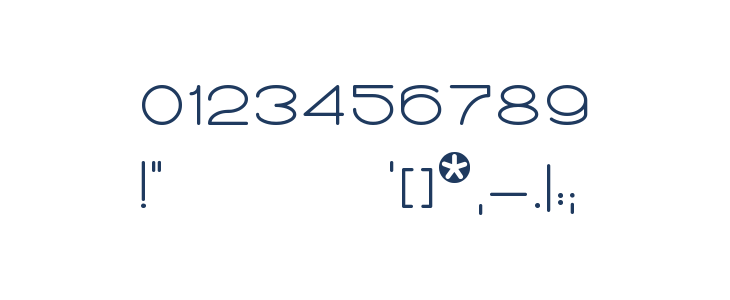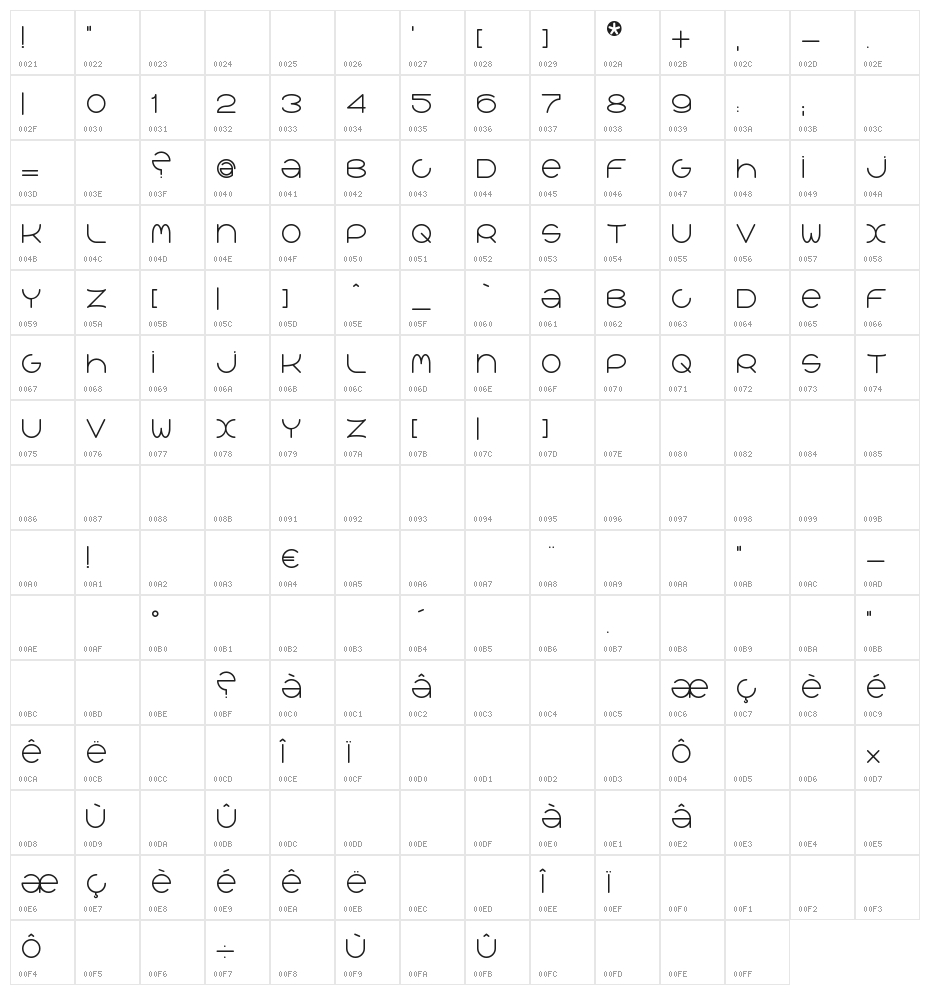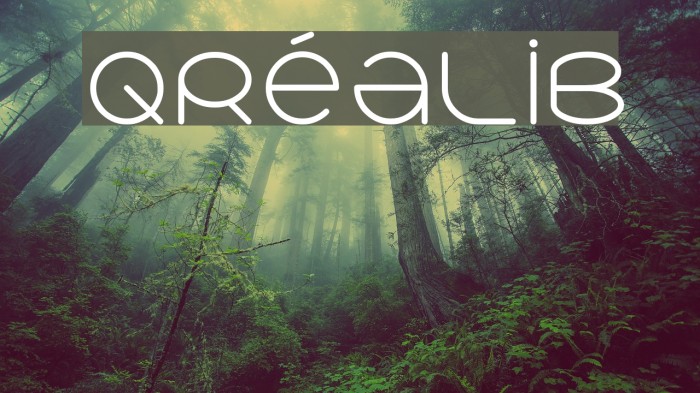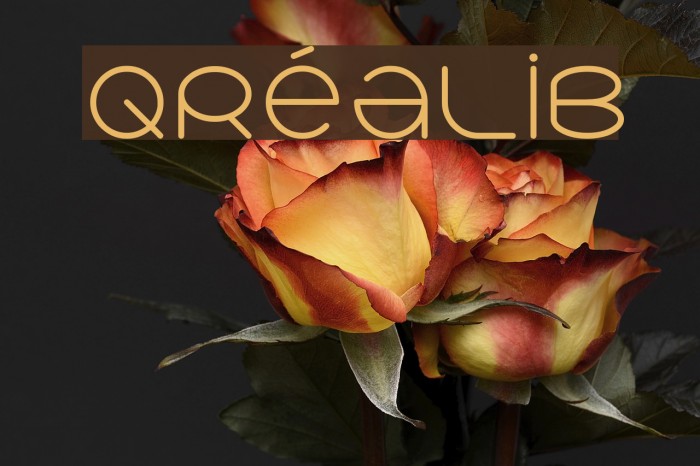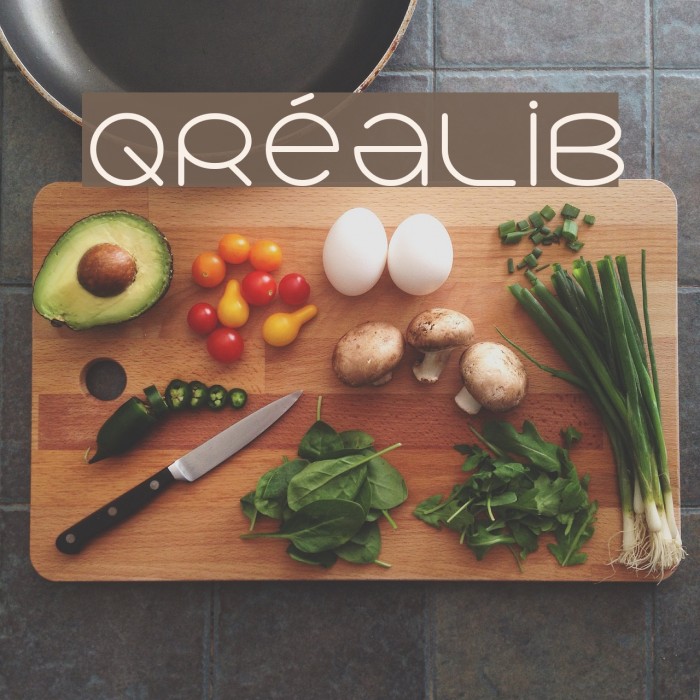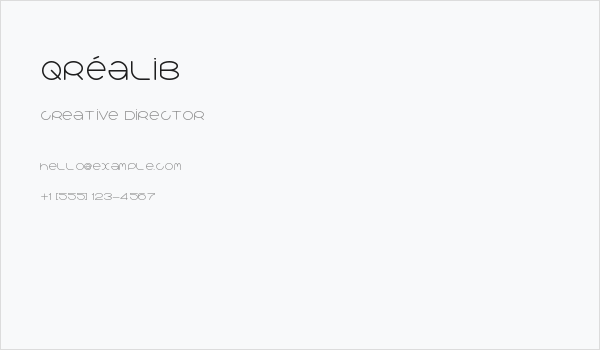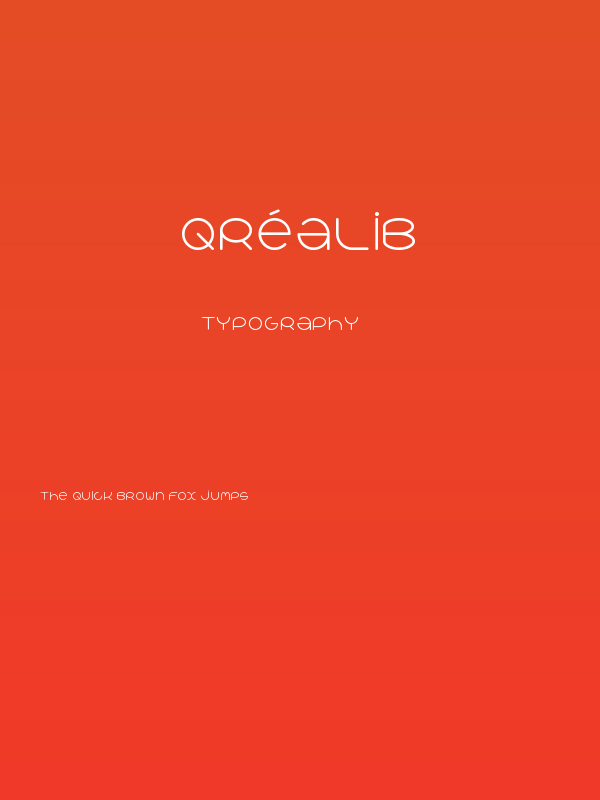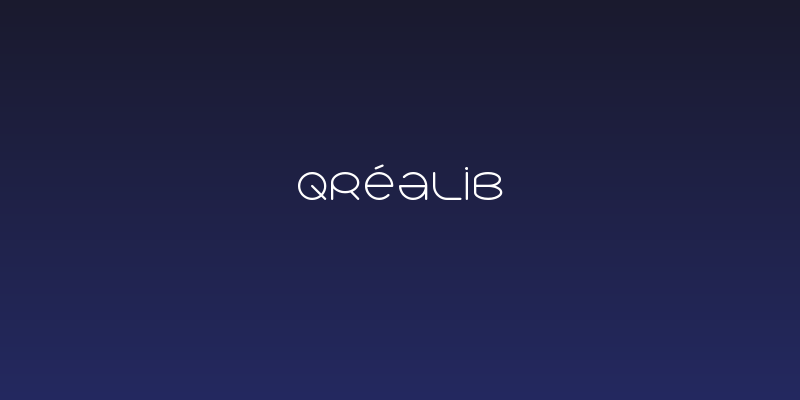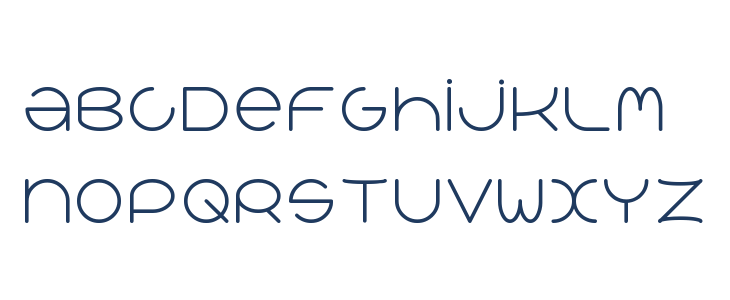
qréalib Font
qréalib Description
This font features a modern, geometric design with clean, rounded edges and a minimalist aesthetic. The characters are uniformly structured, providing a sense of balance and harmony. The uppercase and lowercase letters maintain a consistent style, with smooth curves and a slight futuristic touch. The numerals are distinct and easy to read, complementing the overall design. Special characters are crafted with the same attention to detail, ensuring they fit seamlessly with the rest of the font. This font's simplicity and elegance make it versatile for various design projects.
| Use Case | Logos, Headlines, Digital interfaces |
| Proposed Projects | Ideal for tech branding, modern web design, minimalist posters, and digital interfaces. |